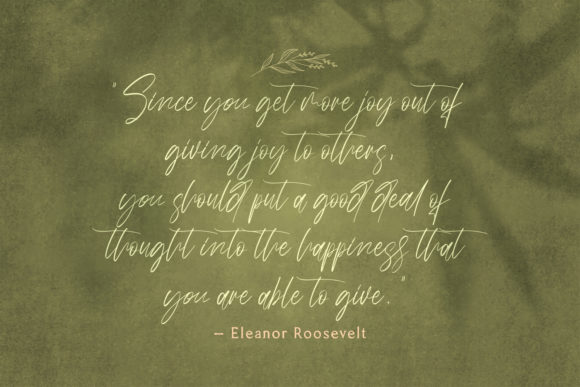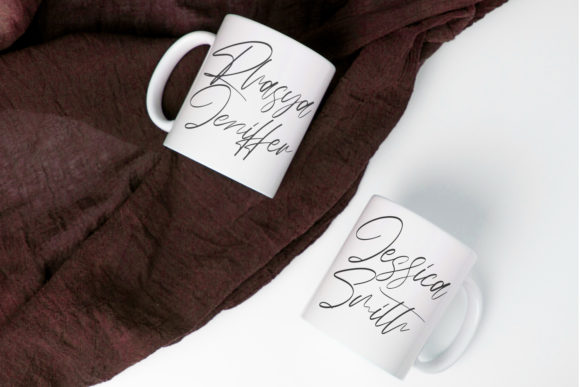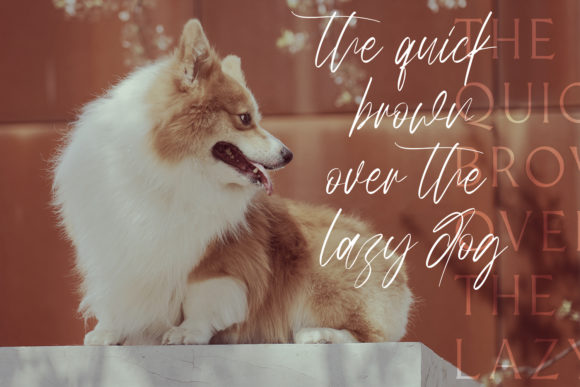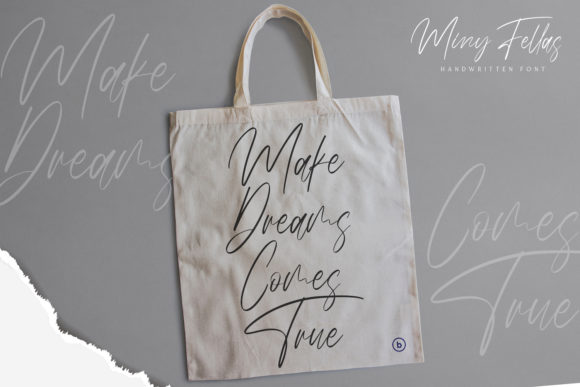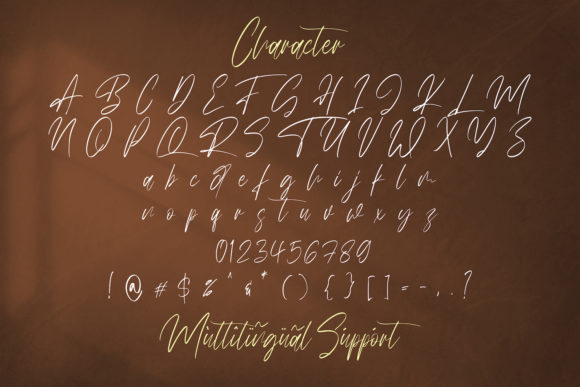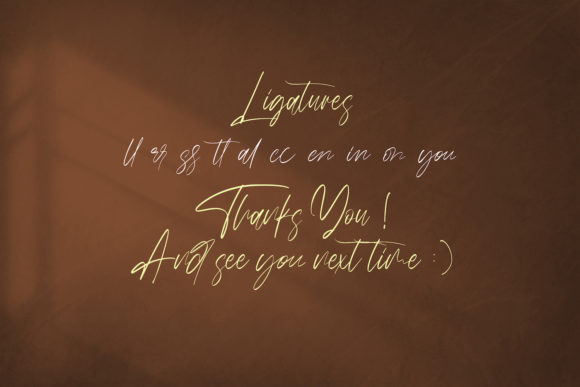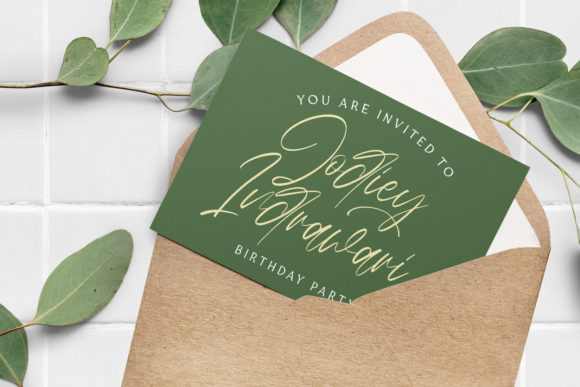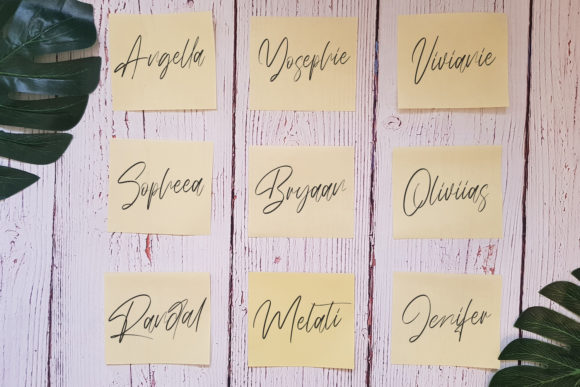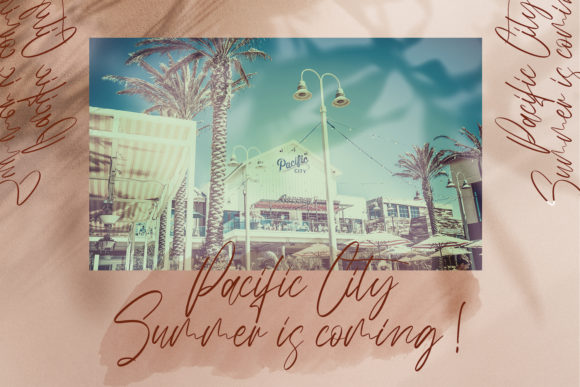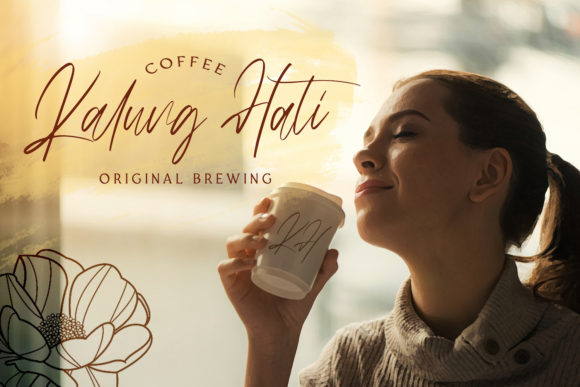
Miny Fellas Font
About Miny Fellas Font
Miny Fellas is inspired by classic typography and brings its own unique style to any design project. Use this gorgeous and unique handwritten font to bring any DIY project to life!